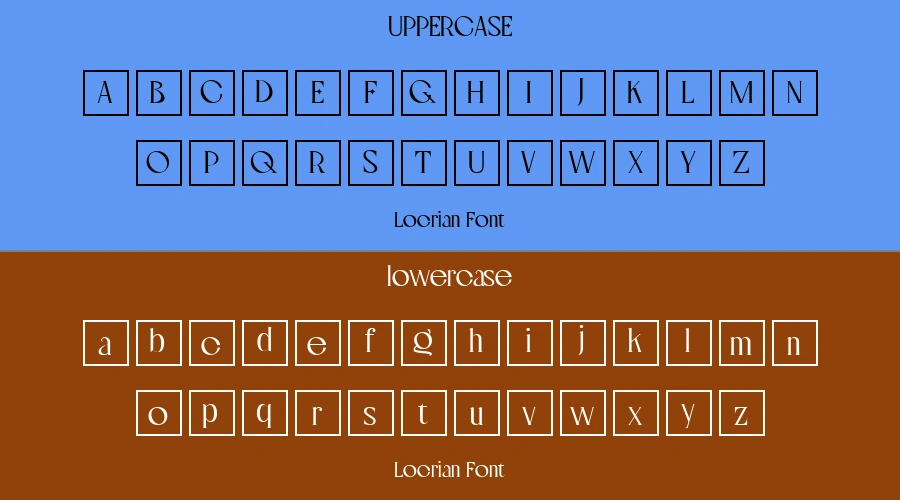
About Locrian Font
Designed with precision, Locrian Font merges dramatic weight with typographic color in every character. This versatility makes it particularly effective for advertising campaigns, where personality and design excellence directly impact communication quality. Each letterform demonstrates meticulous craftsmanship.
Technical excellence shines through elements like humanist proportions and numerator/denominator, enhancing typographic versatility. In hero imagery settings, Locrian Font proves its worth through superior compatibility. The thoughtful execution of counter size and cultural relevance ensures professional results.